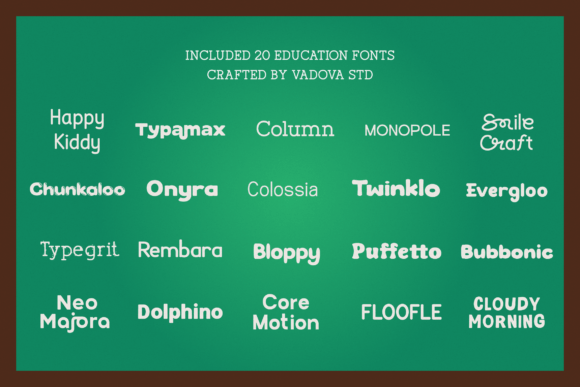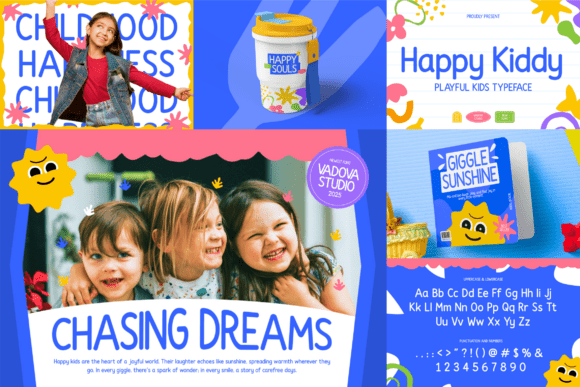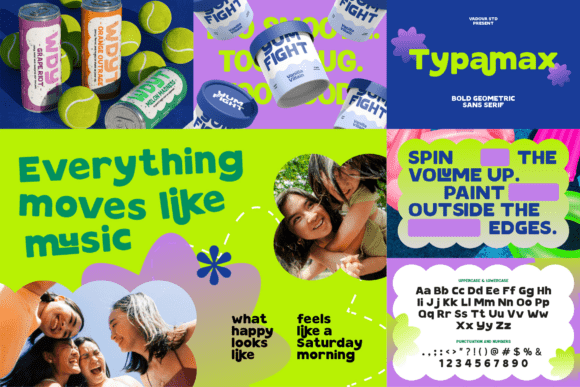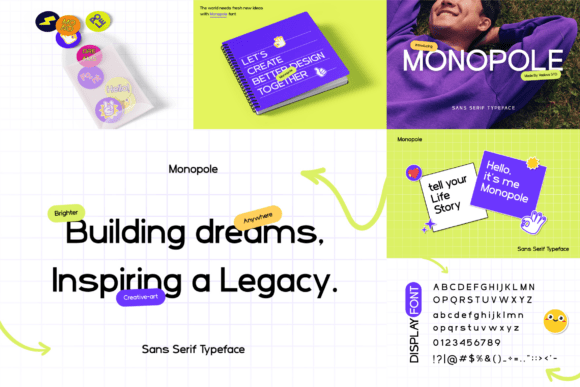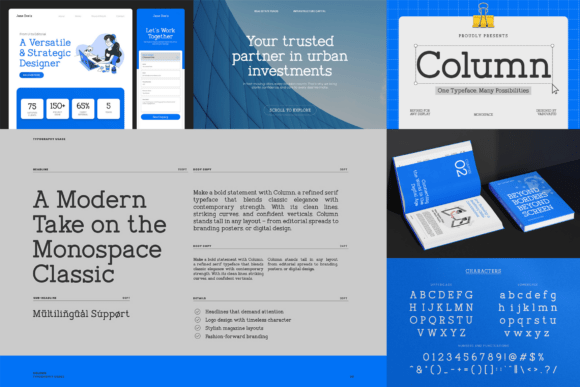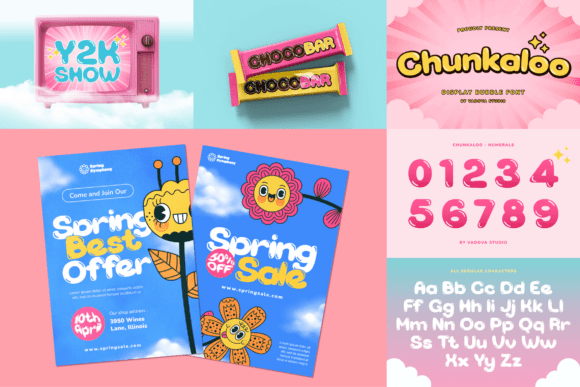
Unlock the Power of Playful Learning with the Education Bundle Font
Are you a teacher, designer, or education-based business looking for a font that can bring a touch of fun and excitement to your learning materials? Look no further than the Education Bundle Font, a carefully curated collection of playful and cheerful fonts designed specifically for school, kids, learning, and creative education projects.
A Collection of Fonts that Bring Learning to Life
The Education Font Bundle is a vibrant and engaging font collection that combines fun display fonts, bold handwritten styles, and friendly letterforms to create a unique and captivating visual experience. Each font in the bundle is crafted with a joyful and approachable character, making it perfect for educational branding, classroom materials, kids’ products, worksheets, notebooks, posters, and social media designs.
What Makes the Education Bundle Font So Special?
With the Education Bundle Font, you can add a splash of color and energy to your designs, making them more engaging, friendly, and full of learning energy. The fonts are designed to be highly versatile, making them suitable for a wide range of applications, from educational materials to creative projects. Whether you’re a teacher looking to create engaging lesson plans, a designer working on a project for a kids’ brand, or a business owner seeking to create a fun and playful brand identity, this font bundle has got you covered.
Key Features of the Education Bundle Font
- 20 Education Fonts: The bundle includes 20 unique and playful fonts, each carefully crafted to bring a touch of fun and excitement to your designs.
- Playful, Bold, and Friendly Display Styles: From bold and playful display fonts to friendly and approachable handwritten styles, the Education Bundle Font has a wide range of styles to choose from.
- Fun Letterforms for Kids and School Projects: The fonts in the bundle are designed to be kid-friendly, making them perfect for school projects, kids’ products, and educational materials.
- Perfect for Learning Materials and Creative Designs: Whether you’re creating educational materials, such as worksheets and lesson plans, or working on creative projects, such as posters and social media designs, the Education Bundle Font is the perfect choice.
Who Can Benefit from the Education Bundle Font?
The Education Bundle Font is ideal for a wide range of individuals and businesses, including:
- Teachers: Create engaging lesson plans, worksheets, and classroom materials with a playful and fun font.
- Designers: Work on projects for kids’ brands, educational institutions, and businesses that require a fun and playful typography.
- Schools: Develop a consistent brand identity with a font that is both playful and professional.
- Tutoring Brands: Create a fun and engaging brand identity that appeals to kids and parents.
- Kids’ Activity Creators: Develop fun and interactive materials, such as activity sheets and workbooks, with a playful font.
- Education-Based Businesses: Create a professional and playful brand identity that showcases your commitment to learning and education.
The Education Bundle Font is a powerful tool for anyone looking to bring a touch of fun and excitement to their learning materials and creative projects. With its playful and cheerful fonts, bold display styles, and friendly letterforms, this bundle is perfect for teachers, designers, schools, tutoring brands, kids’ activity creators, and education-based businesses. So why wait? Unlock the power of playful learning with the Education Bundle Font today!